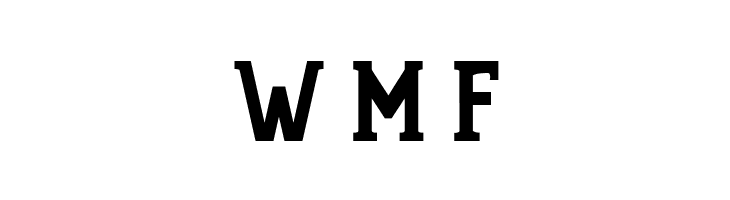
Rune Font
A modern font inspired by ancient runic symbols with sharp, angular lines.
Runelike Regular Font
A bold, angular font inspired by ancient runic alphabets.
RUNEnglish 1 Font
A bold, angular font with a geometric style and strong lines.
RUNEnglish 2 Font
A bold, angular font with a medieval, gothic influence.
Runes Font
A bold, angular font inspired by ancient runic alphabets, perfect for historical or mystical themes.
Runes - The elder scroll Font
A bold, angular font inspired by ancient runic scripts, perfect for fantasy themes.
Runes of the Dragon Font
A decorative, rune-like font with intricate, mystical designs.
Runes of the Dragon Two Font
A decorative, rune-like font with intricate and bold designs.
RuneScape UF Regular Font
A pixelated, retro font inspired by classic video game typography.
RuneStones Font
A decorative set of symbols inspired by ancient rune stones, featuring intricate and stylized designs.
RunesWritten Font
A hand-drawn, runic-inspired font with angular lines and a primitive aesthetic.
RunesWritten-Bold Font
A runic-inspired font with angular, hand-drawn characters.
Runez of Omega Font
A bold, decorative font with rune-like characters enclosed in rounded shapes.
Runez of Omega Three Font
A rune-inspired, decorative font with bold, hand-drawn characters enclosed in ovals.
Runez of Omega Two Font
A decorative font with rune-like characters encased in ovals, featuring bold outlines and geometric lines.
RUNGKAD Font
A bold, textured font with a distressed, vintage appearance.
Runic Font
A decorative font inspired by ancient runic alphabets with angular, geometric shapes.
Runic Alt Font
A runic-inspired font with angular, geometric characters and a mystical aesthetic.
Runic Complation Normal Font
A classic serif font with elegant strokes and timeless appeal.
Runic Regular Font